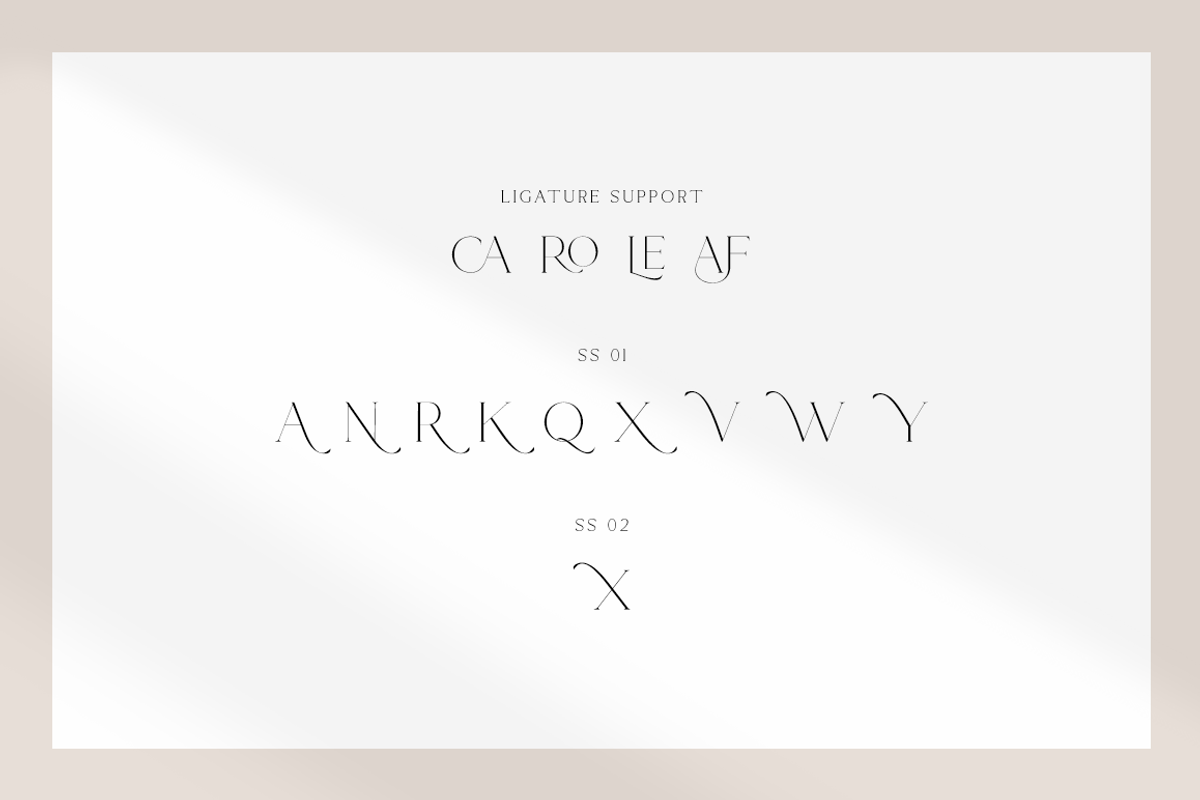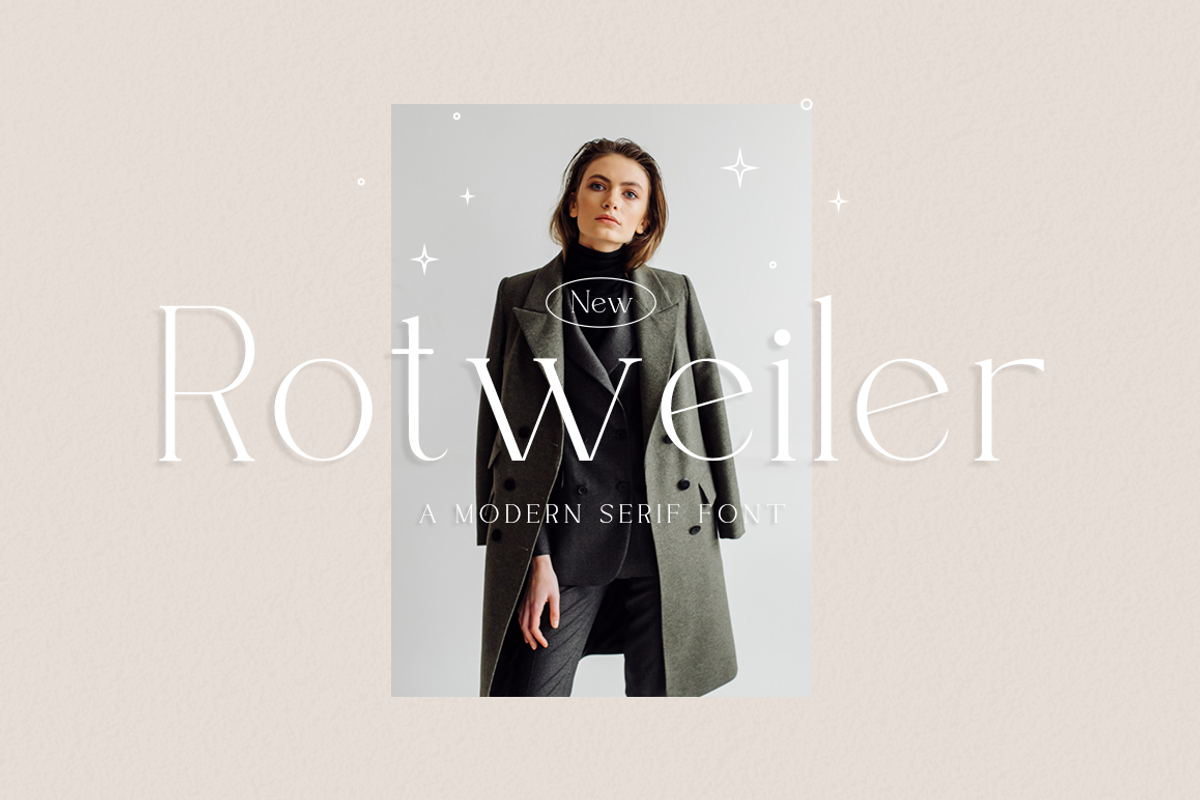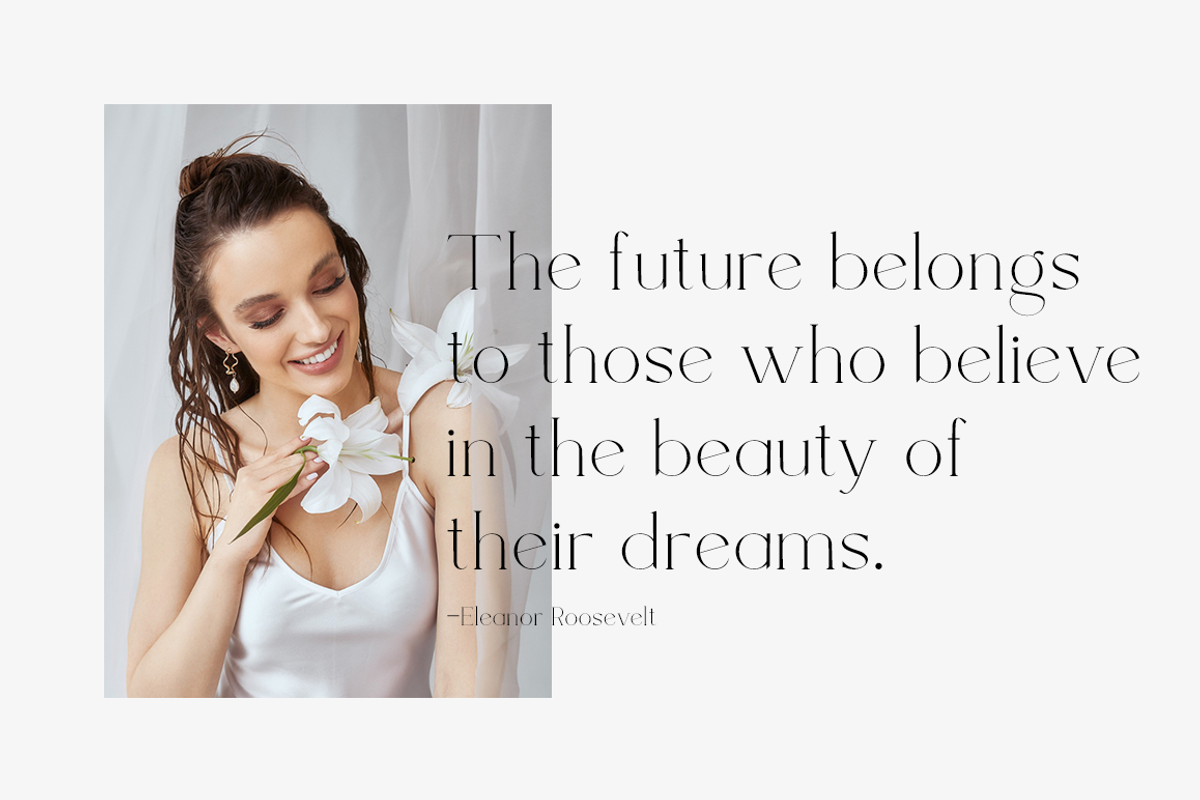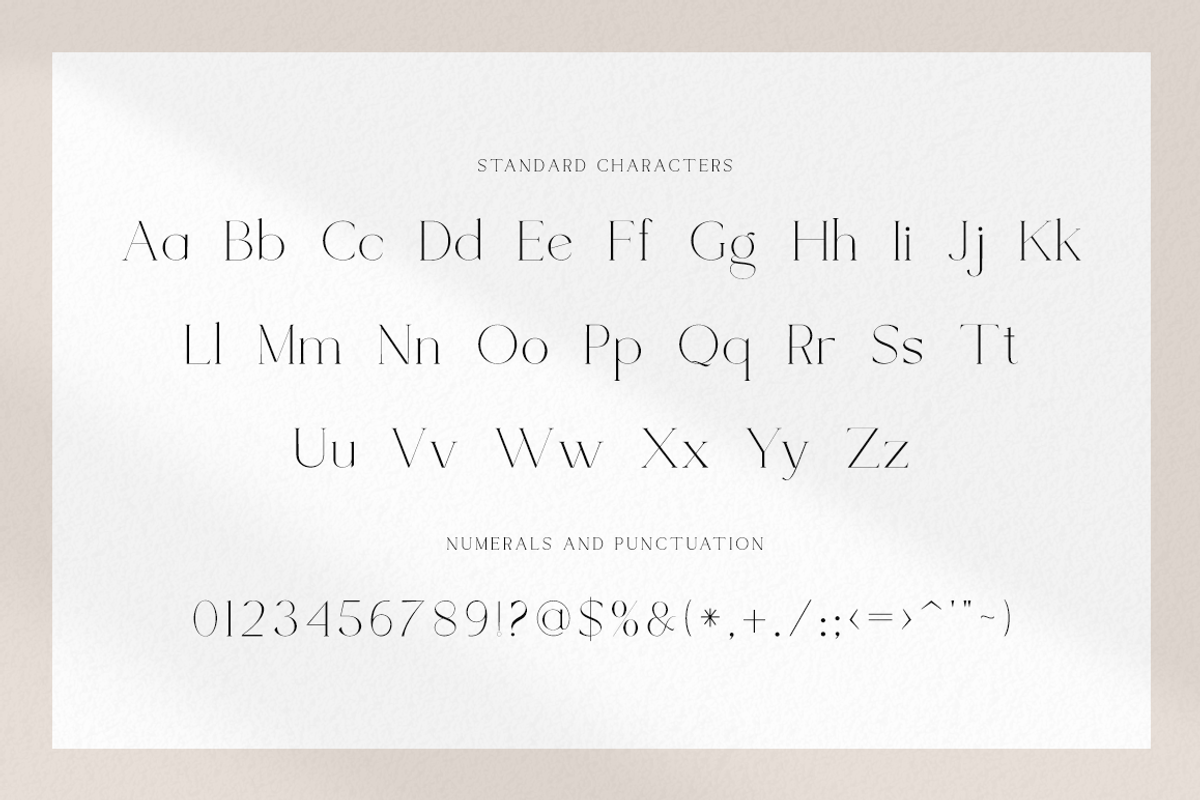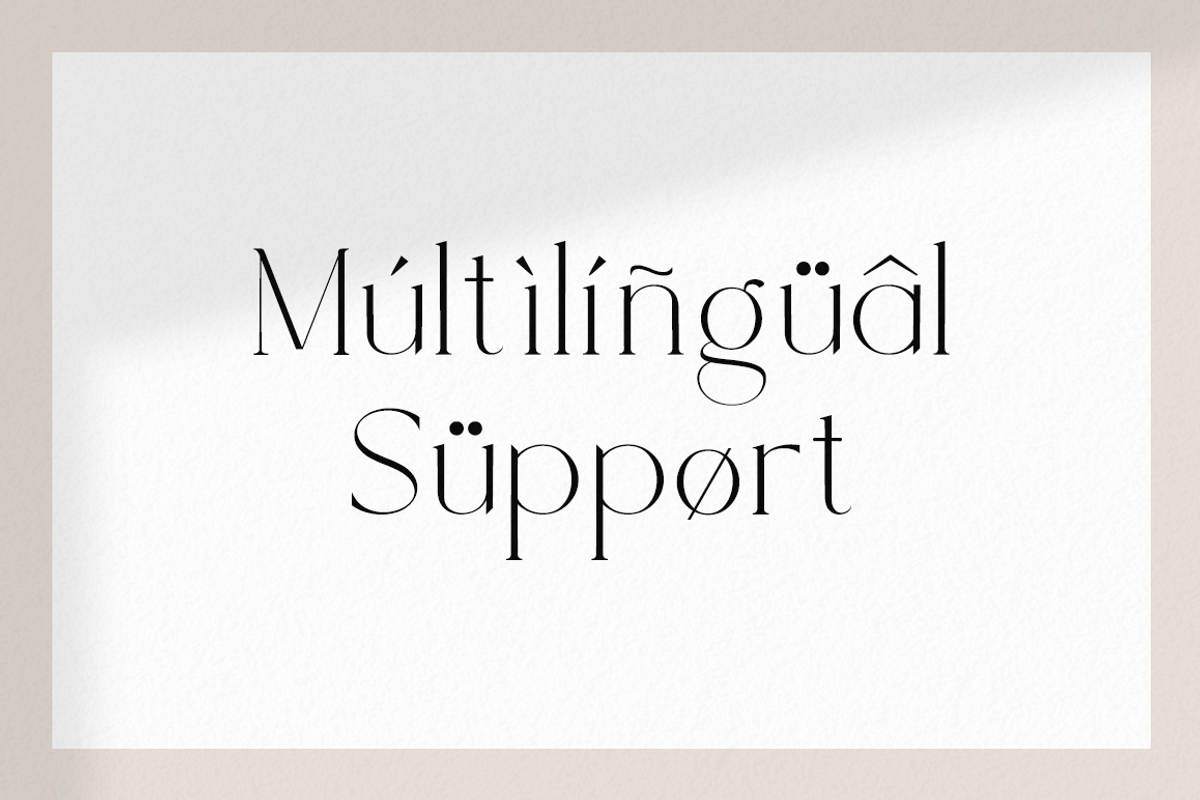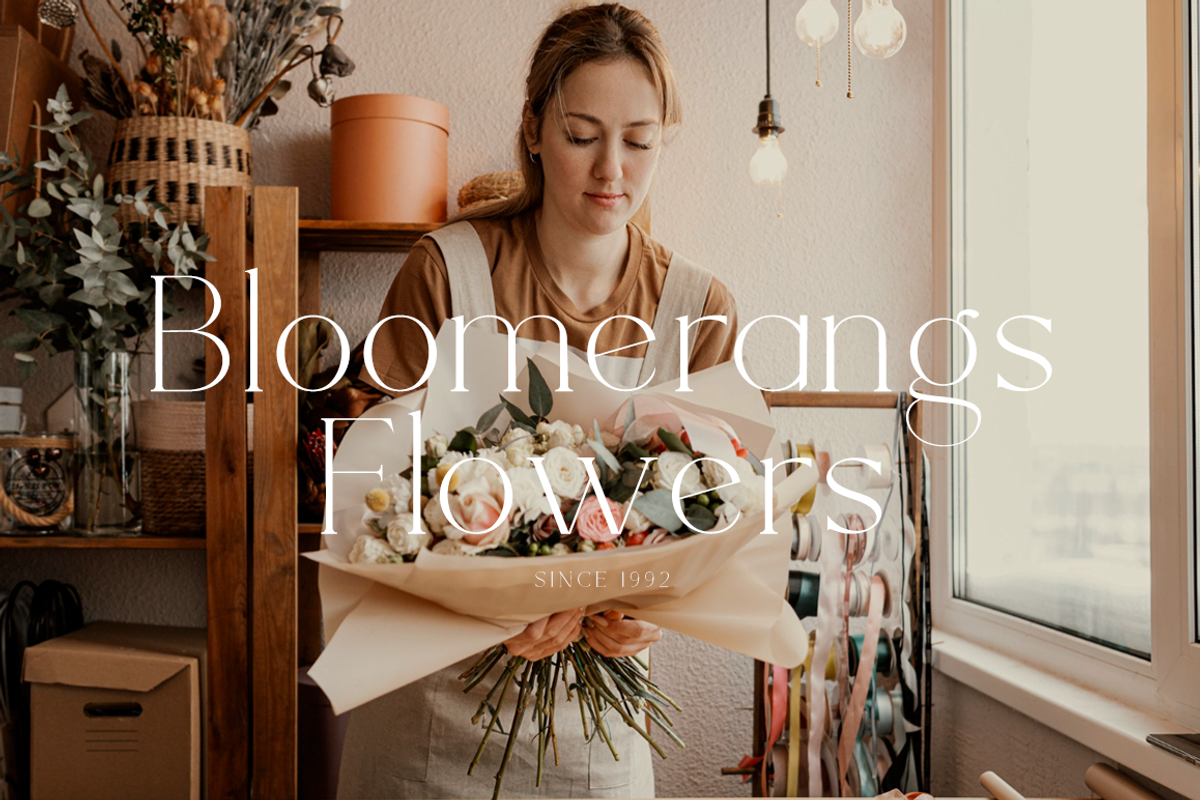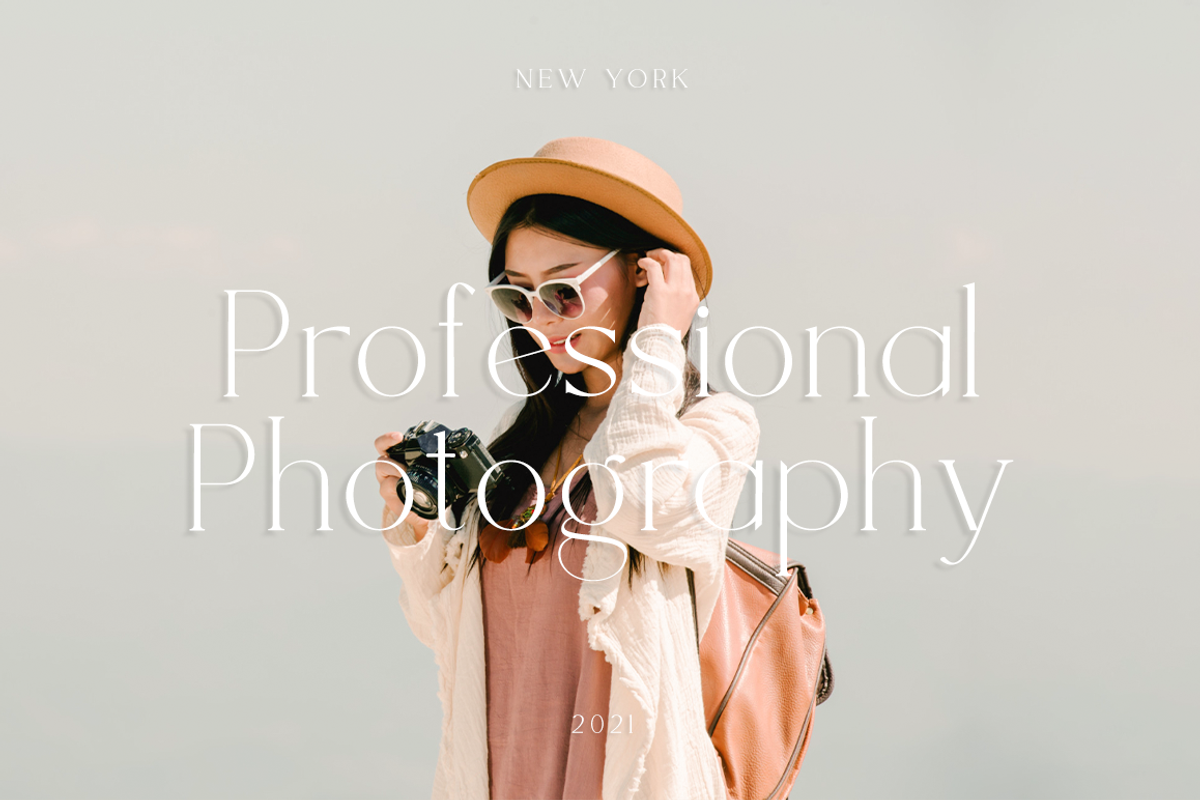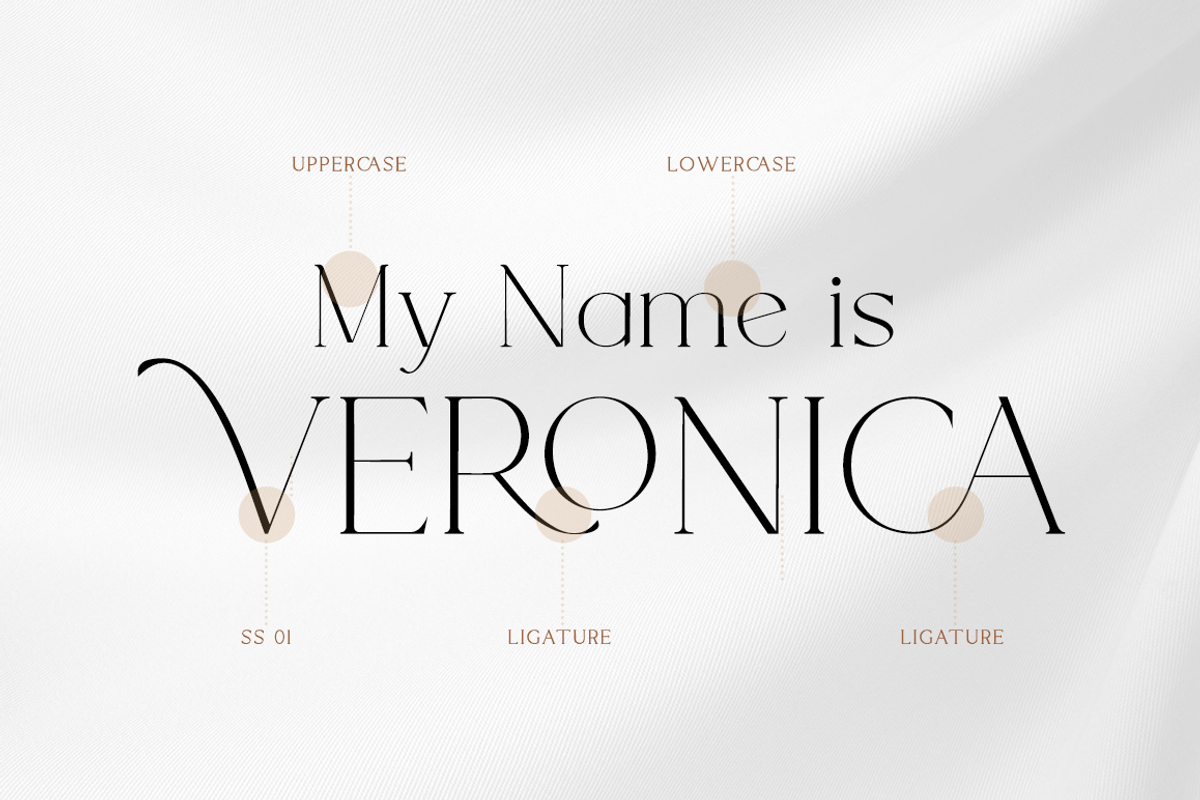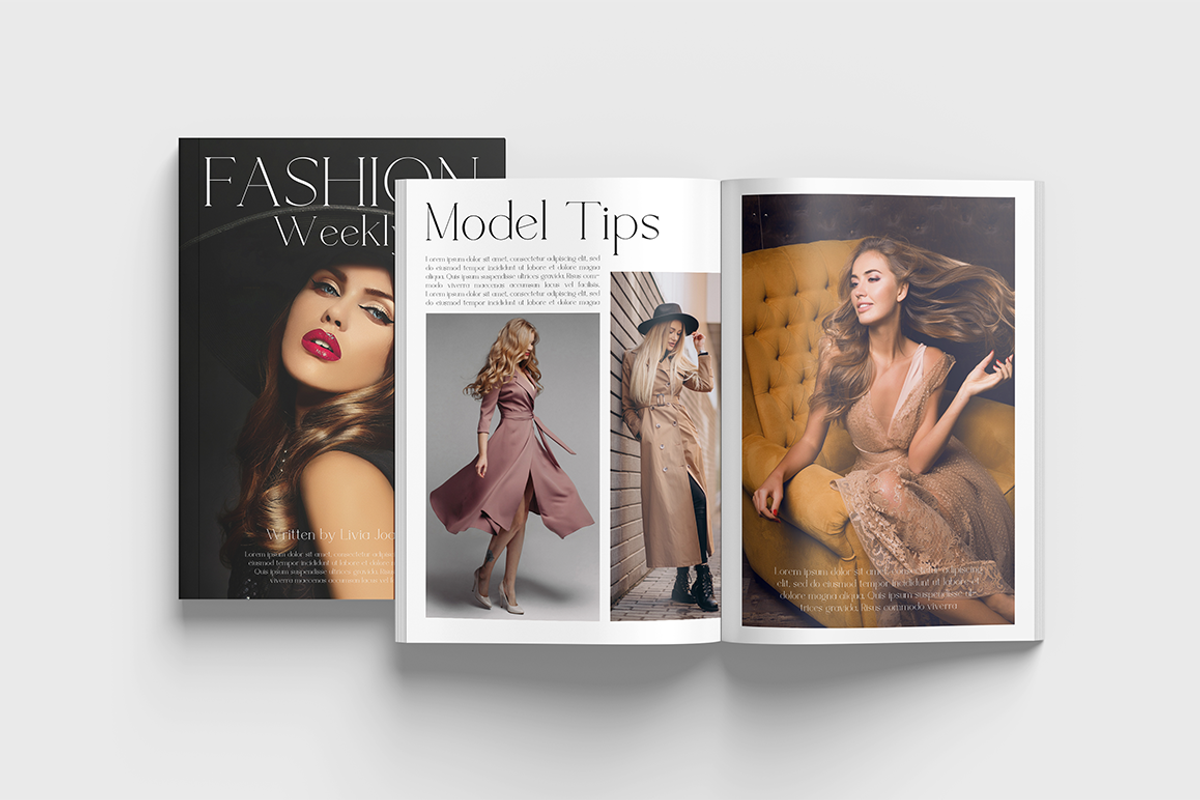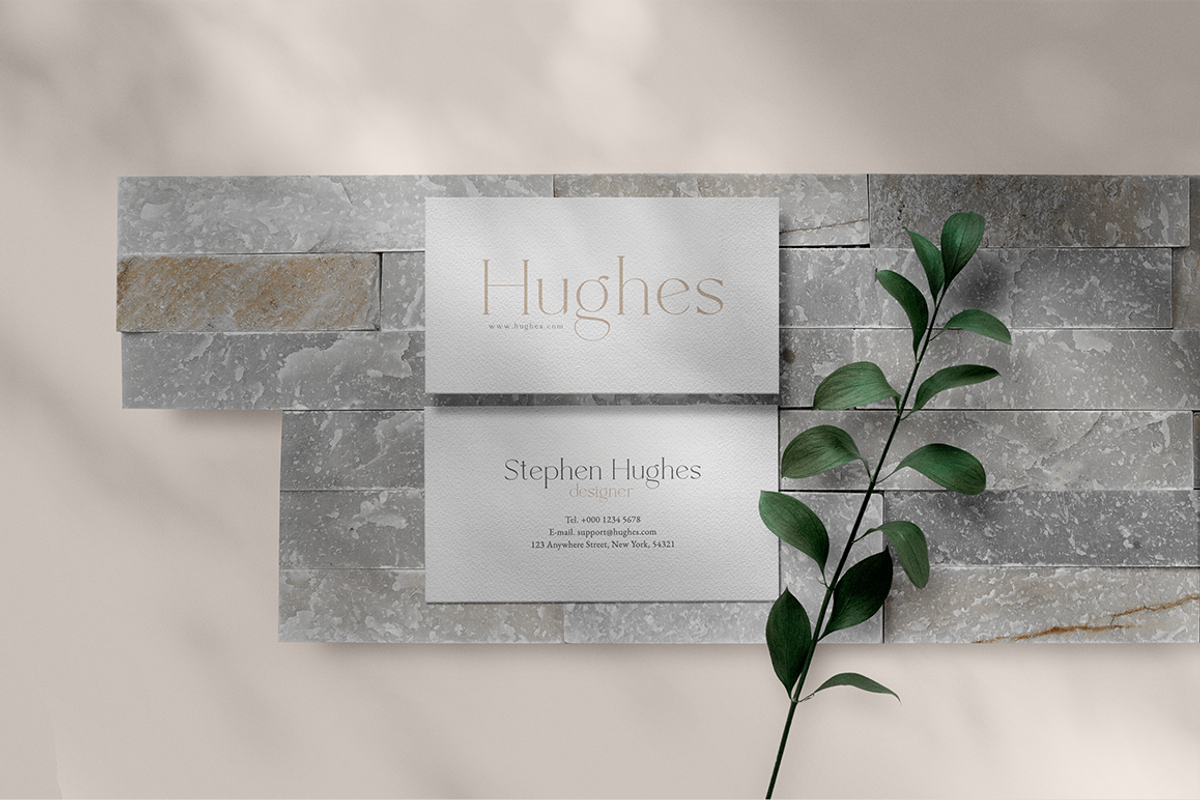
Rotweiler - Fashion Font
Rotweiler is a delicate and elegant serif font. You can use this modern serif font with ligature & stylistic set for fashion, magazines, cooking websites, quotes, social media posts, labels, and many more! Add it confidently to your favorite creations and let yourself be amazed by the outcome generated.